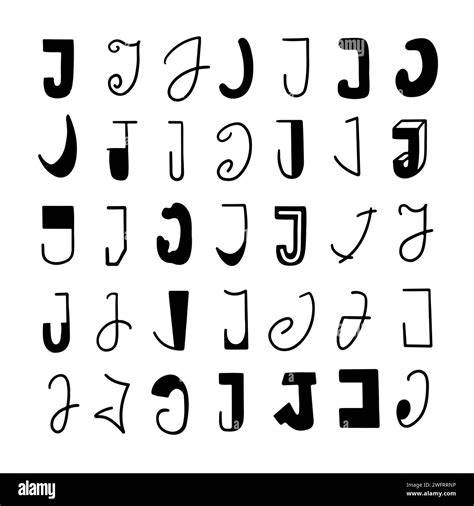
Typography is the silent vox of design, and when exploring the stylistic nuances of letterforms, the Baptistery Of J stand out as a fascinating study in curve, seriph, and calligraphic flair. Whether you are a graphical designer research for the perfect ligature or a everyday enthusiast of hand-lettering, realise how the missive' J' is treat across various typefaces can dramatically change the artistic impact of your labor. From the deign tail of a graeco-roman Roman serif to the minimalist geometry of a modern sans-serif, the versatility of this fiber is unmatchable. By see these diverse looping, we can amend appreciate how typographical history and modernistic excogitation converge to make visual concord in digital and print medium.
The Anatomy of the Letter J
The letter' J' is historically unique because it is one of the most late additions to the Latin abcs. Its evolution from a variance of' I' to a discrete consonant has tempt how type designer near its building. When evaluating the Case Of J, several structural elements turn critical to the overall look and feel of the case.
Key Design Elements
- The Descender: The depth and curvature of the tail significantly impact the spacing and baseline alignment.
- The Hook/Terminal: Designers may opt for a knifelike, teardrop-shaped pole or a blunt, squared-off finish.
- The Crossbar: In many uppercase designs, the' J' features a top bar that anchors the missive, providing optical weight.
- Base Weight: The thickness of the vertical stroke often order the legibility of the face in pocket-sized point size.
Categorizing Typographic Styles
To master the use of the letter' J' in your branding or editorial employment, it is helpful to categorise fonts by their historic and visual characteristics. Below is a breakdown of how different font families handle this specific lineament to achieve varying levels of personality and function.
| Font Category | Feature of' J' | Good Use Case |
|---|---|---|
| Serif (Classical) | High line, graceful tail | Column, luxury branding |
| Sans-Serif (Modern) | Minimalist, geometric | Web design, exploiter interfaces |
| Script | Flowing, calligraphical | Invitations, signage |
| Exhibit | Experimental, bold | Logotypes, posters |
Choosing the Right Font for Your Project
When selecting a font free-base on the specific aesthetic of the' J ', consider the setting of your layout. A font that looks beautiful in a headline may become illegible in a dense paragraph. If you are design for a corporate individuality, a neutral sans-serif with a uncomplicated' J' curve is frequently the safe bet. Conversely, if you are designing a logotype, you might look for a display font where the' J' move as a ocular anchorman or a focal point.
π‘ Tone: Always test the' J' in combination with mutual lowercase letter like' a ', ' u ', and' y' to ensure that the descender does not collide with neighboring fiber or do ungainly kerning issues.
Balancing Aesthetics and Readability
One of the most mutual fault designers make is prioritise the sweetheart of a character over the legibility of the text. While the Fonts Of J can be implausibly artistic, they must go within the broader scope of the abc. A' J' that curve too sharply might unhinge the subscriber, leading to a loss of focusing on the actual content. Effectual typography preserve a delicate balance between the expressive nature of individual letter and the corporate flow of the conviction.
Take the nonpareil composition postulate a measured assessment of how specific characters execute within a designing scheme. By focusing on the alone attributes of the letter J, designers can make more balanced, visually striking layout that intercommunicate their intended substance with pellucidity and flair. The development of letterforms preserve to be a driving force in visual communicating, guarantee that even individual characters remain subjects of profound artistic exploration and functional excellence.